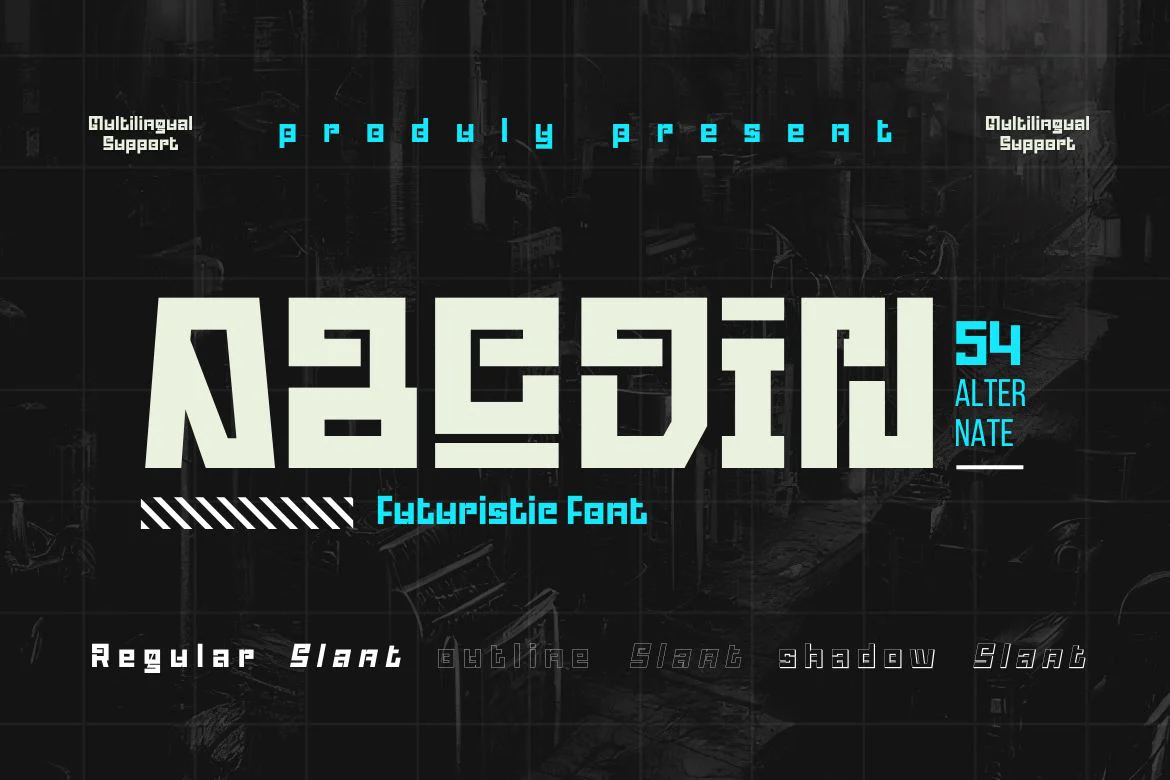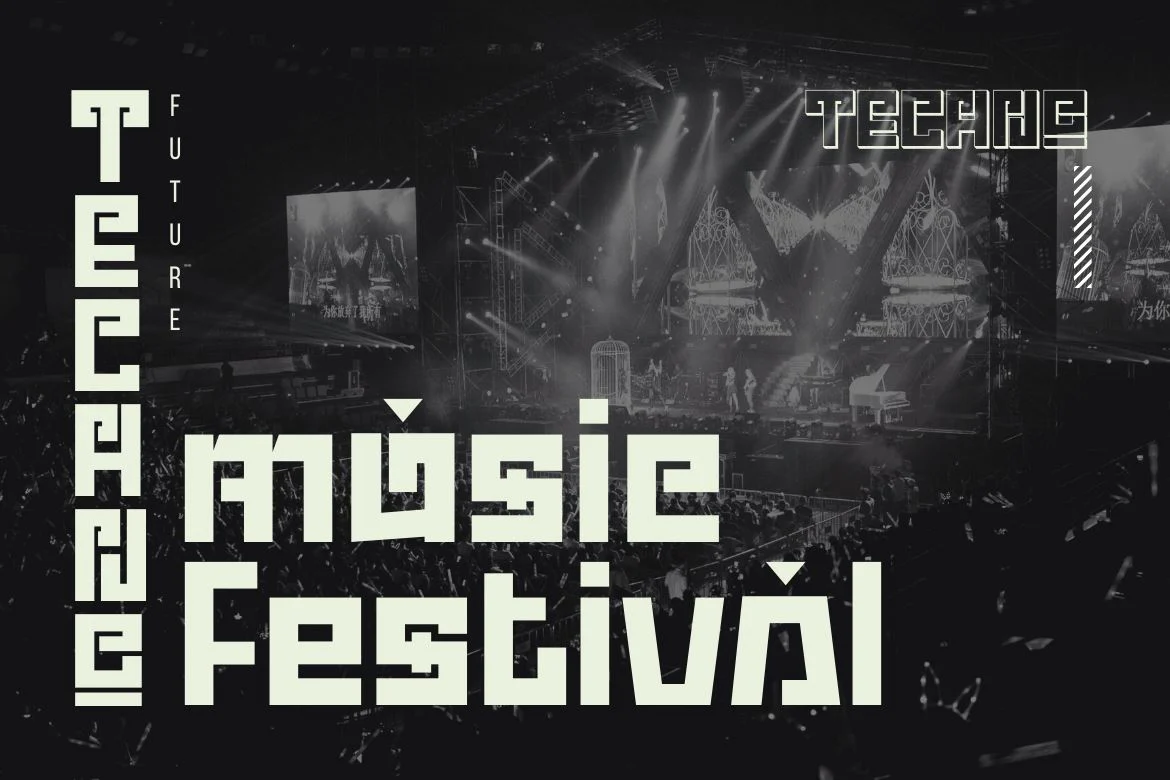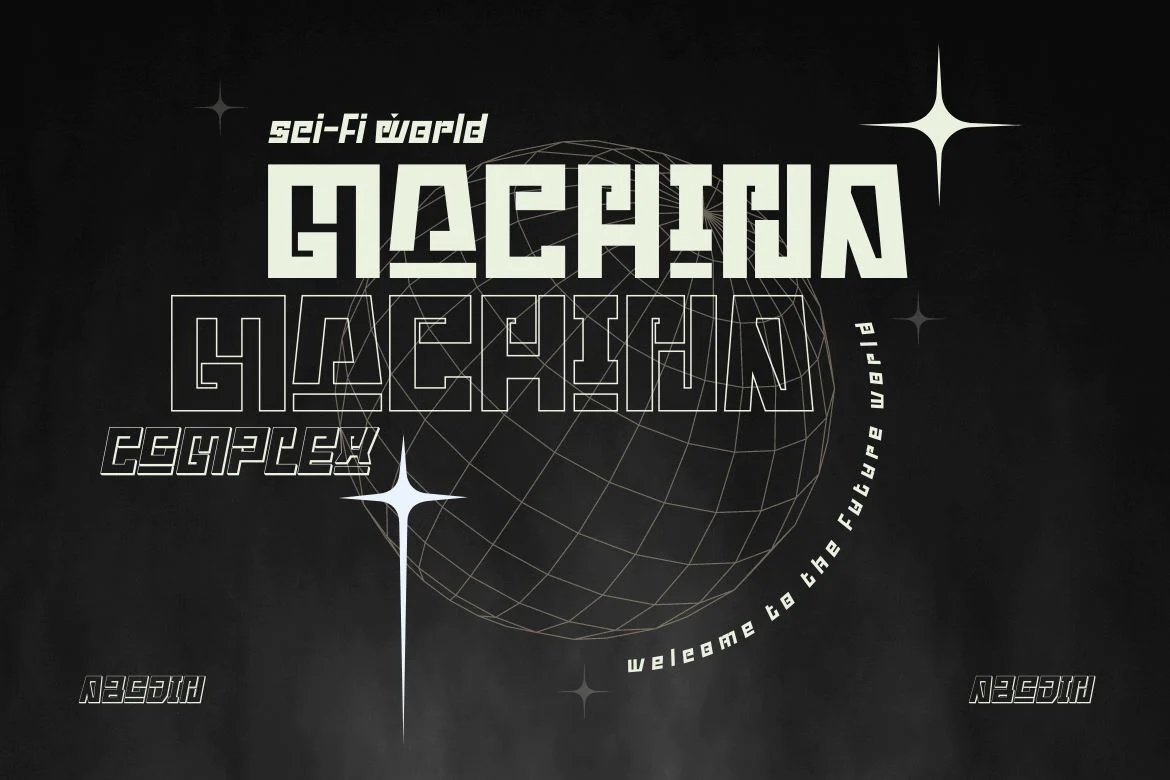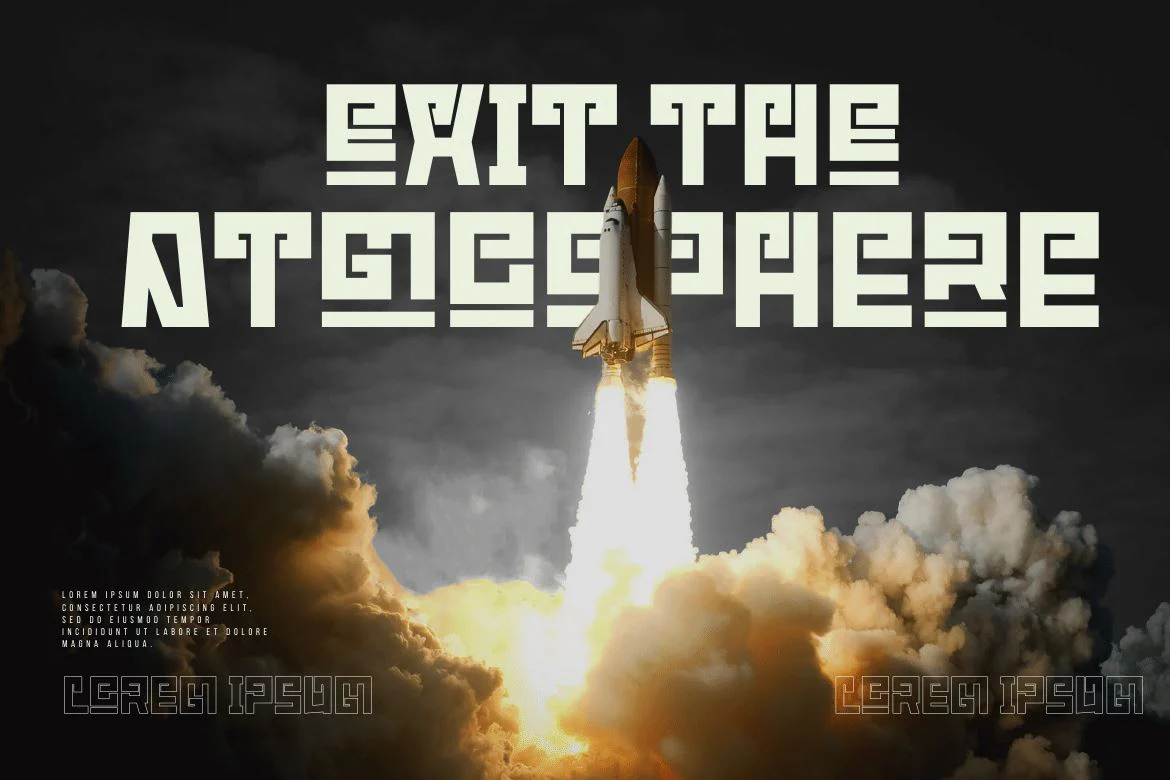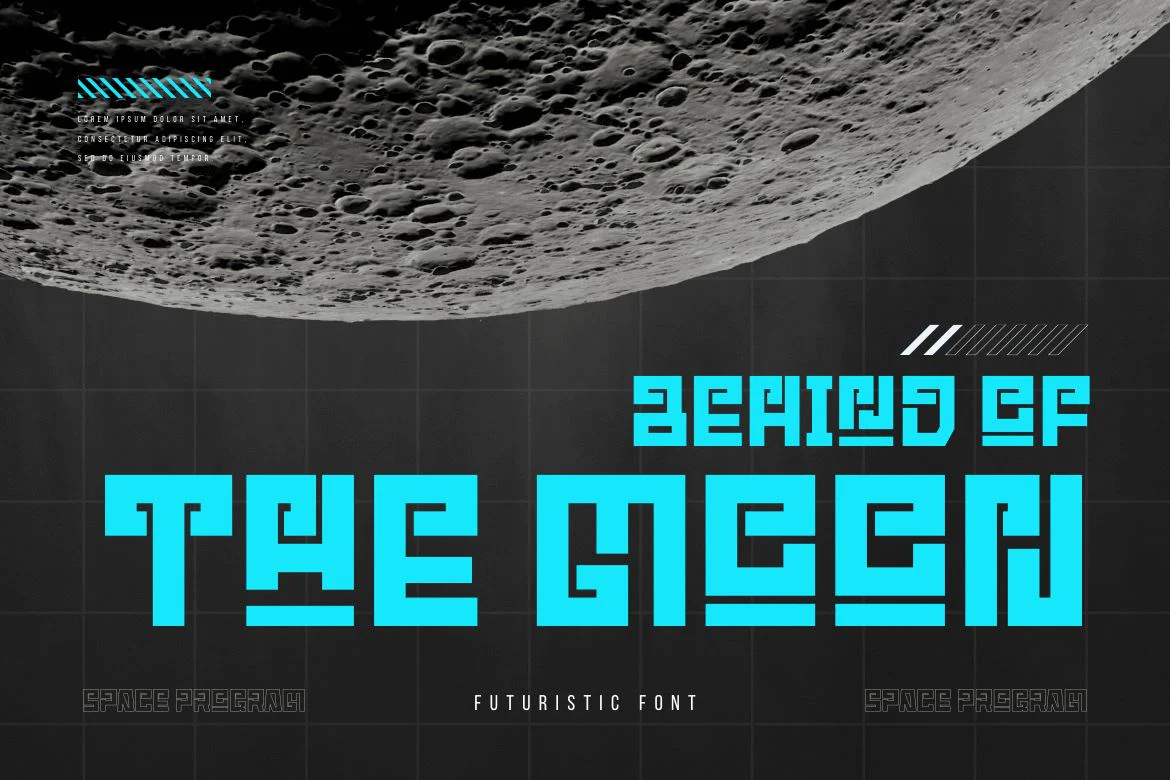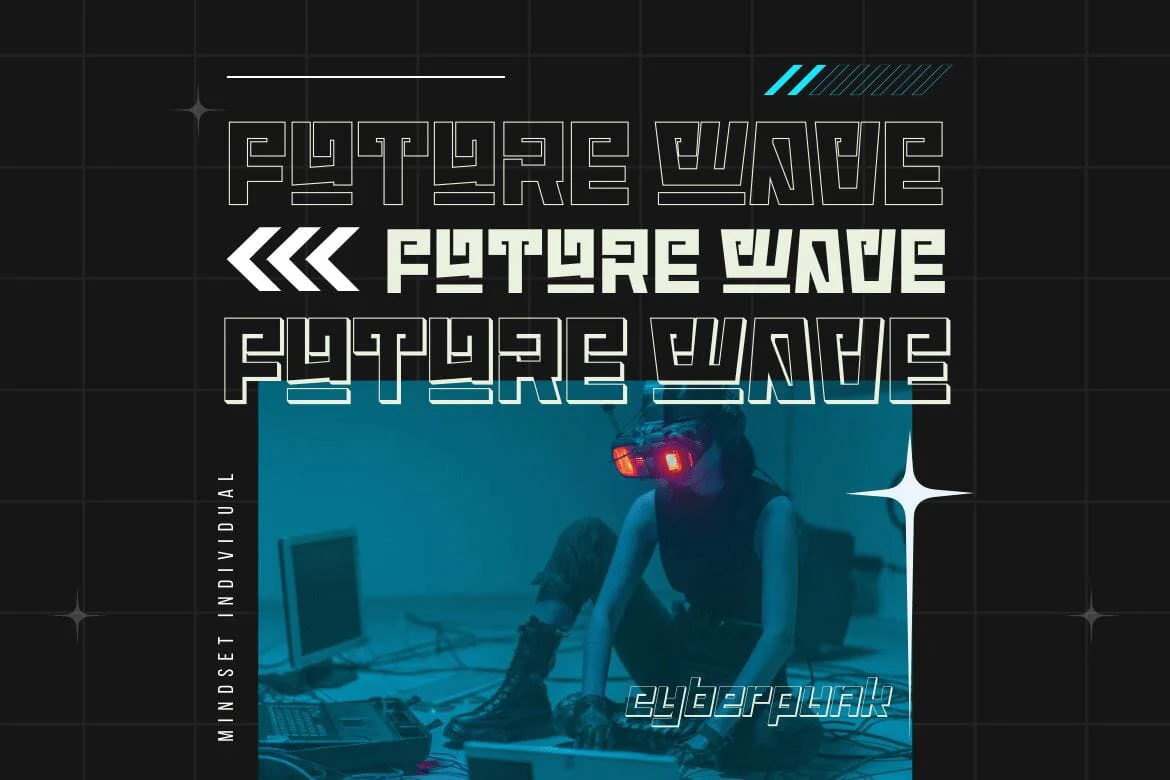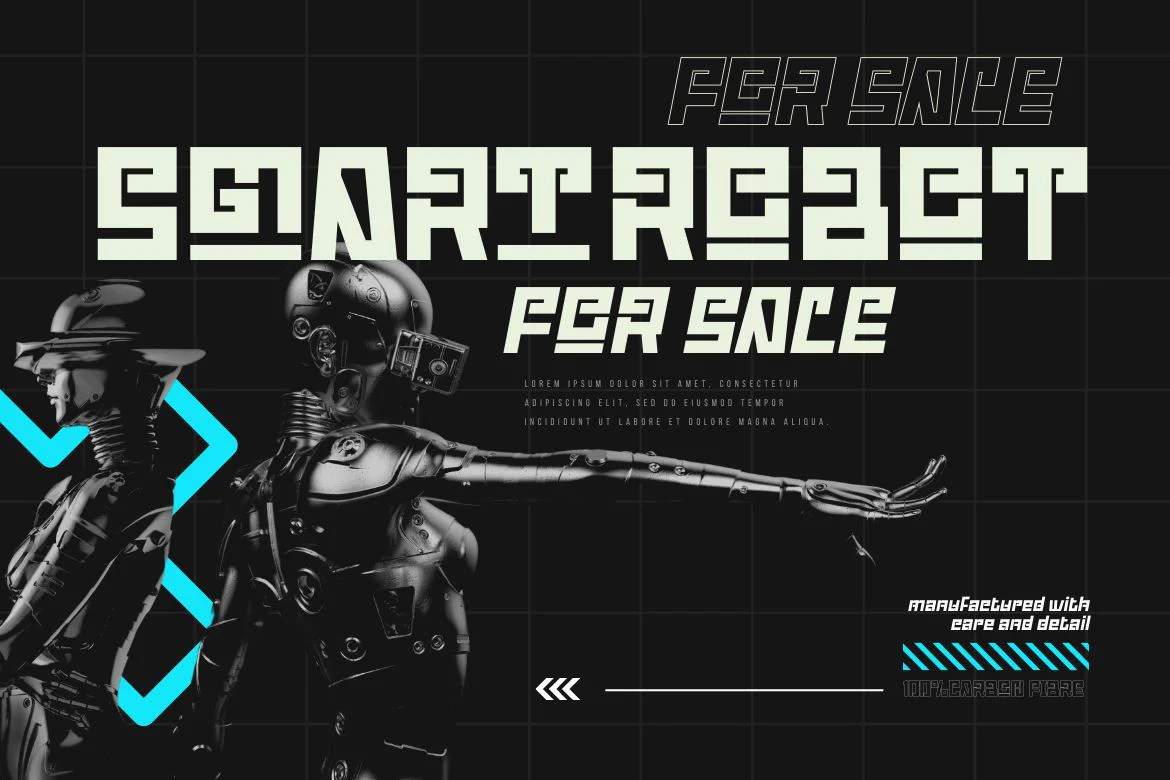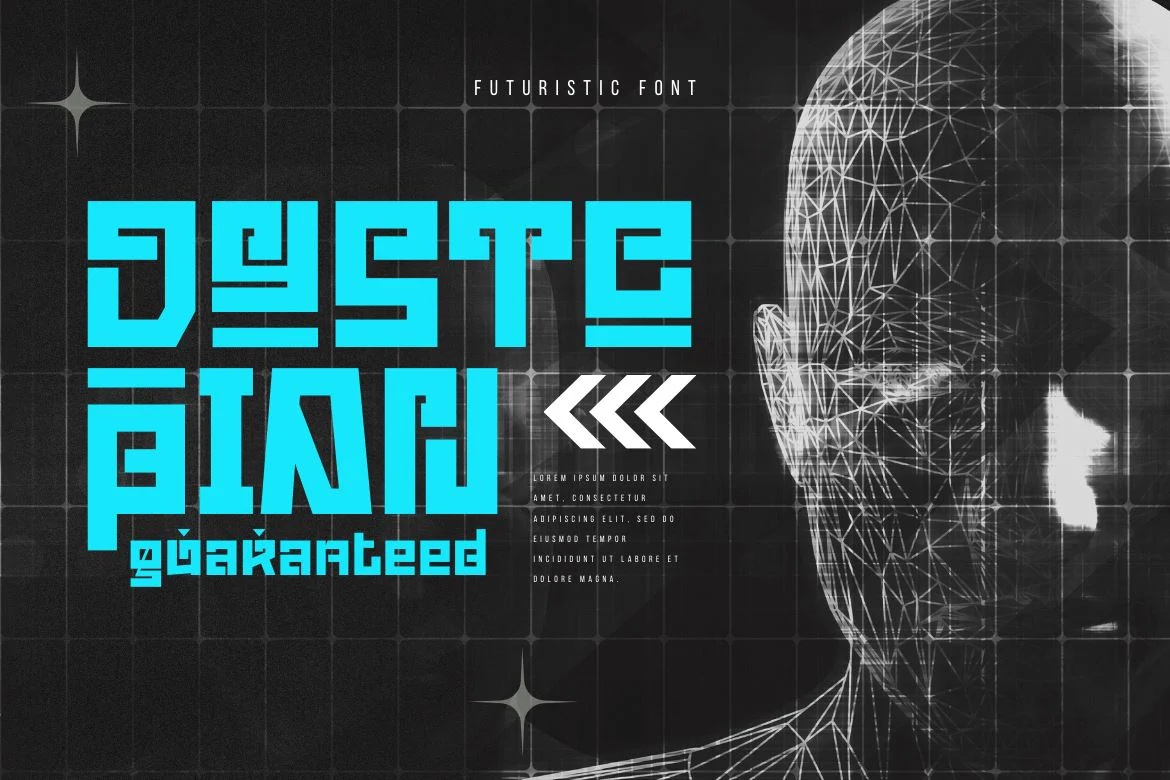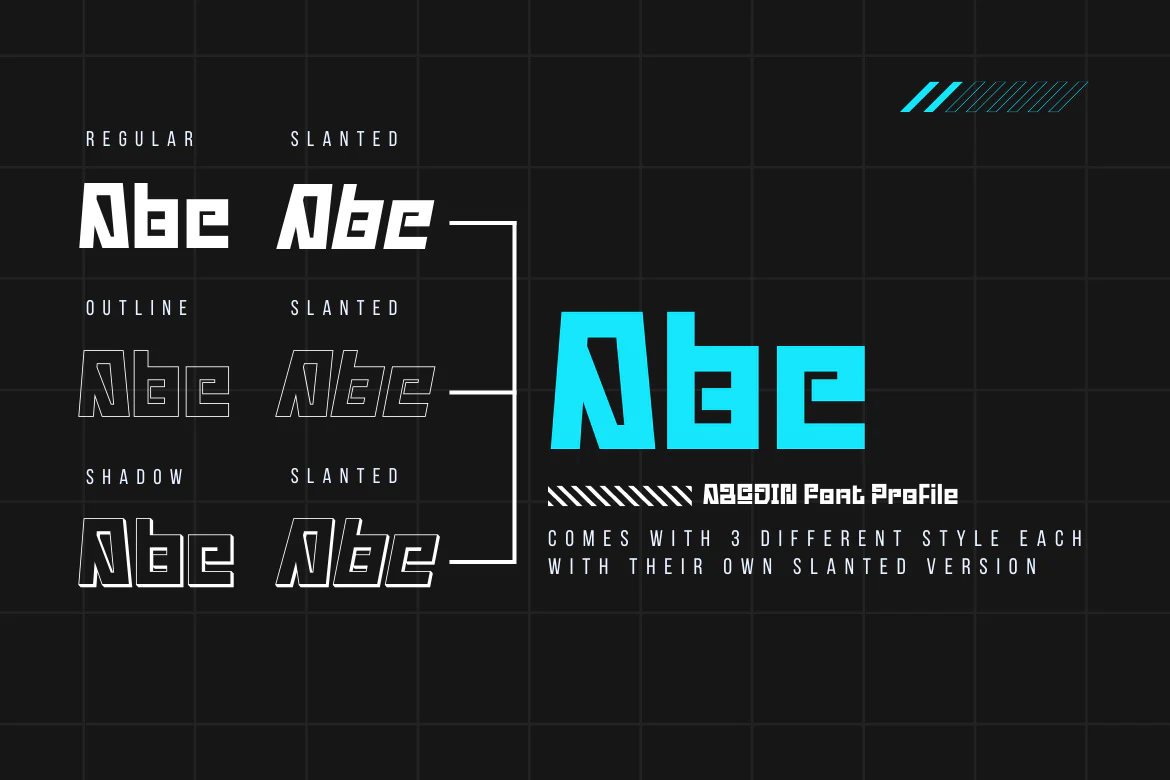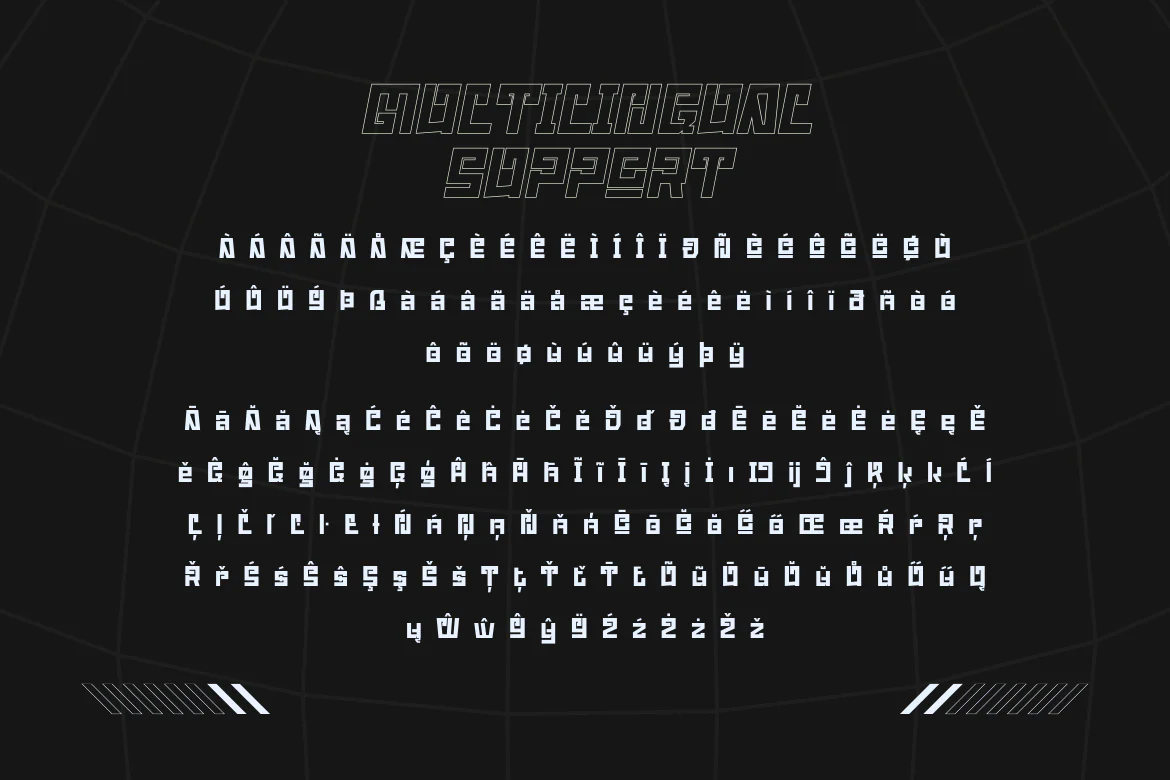
Abodin | Futuristic Font
Abodin is a modern and fresh futuristic font. This font gives off a clean, minimalist, and futuristic feel. This font is equipped with upper and lower case. This font also contains Alternate and is equipped with 4 different styles, so it can give the impression of unlimited designs and is perfect for all kinds of your projects.
Use this modern san serif font to have a high impact on your design, giving it a futuristic feel. This font is the right choice for websites or designs that need to be presented with a futuristic character.
Abodin is a modern and fresh futuristic font. This font gives off a clean, minimalist, and futuristic feel. This font is equipped with upper and lower case. This font also contains Alternate and is equipped with 4 different styles, so it can give the impression of unlimited designs and is perfect for all kinds of your projects.
Use this modern san serif font to have a high impact on your design, giving it a futuristic feel. This font is the right choice for websites or designs that need to be presented with a futuristic character.